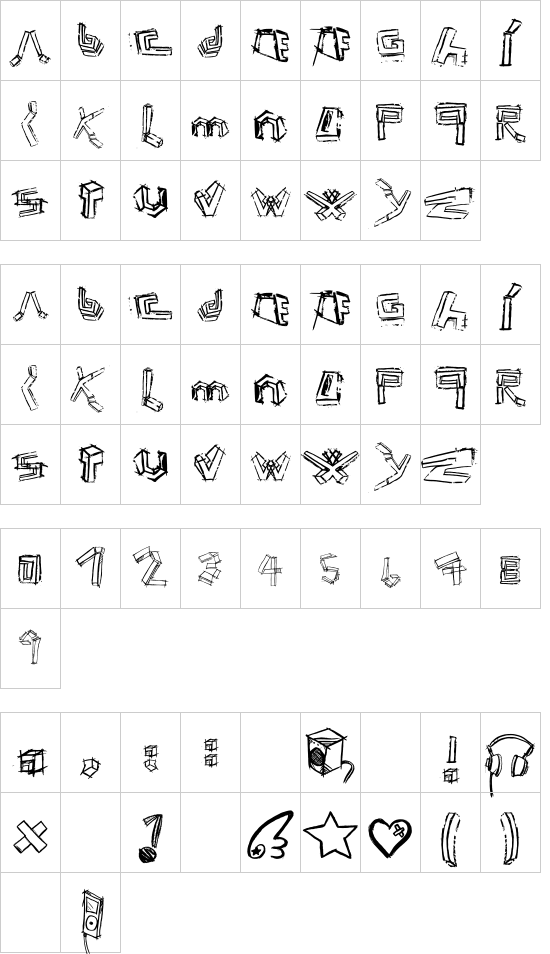
Elli Noise is a 3D handwriting font with dimensional, casual strokes and a playful, sketched depth. The letters are hand-drawn but given a stacked, layered shadow, blending a relaxed scrawl with a fun pop of dimension. Its mood is lighthearted and personal, casual yet eye-catching.
Use Elli Noise for fun posters, quirky branding, social media graphics, and titles that want a hand-drawn pop. It is free to download as a TrueType file, and you can preview your own text to see how the dimensional handwriting reads across a phrase before placing it in a design.